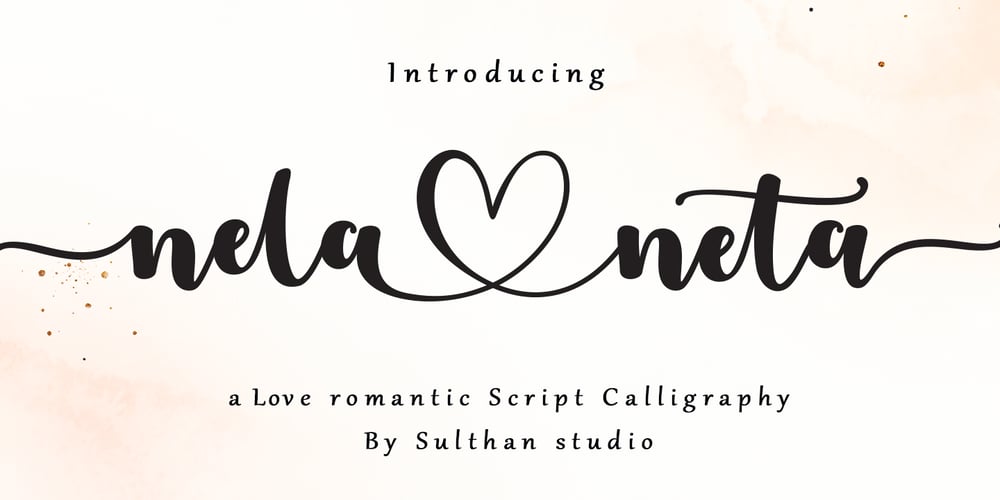
Nela neta script 1 Font Family was designed by Nasrullah and published by Sulthan Studio. Nela neta script 1 contains 3 styles and family package options. Nela neta -Nela neta script font, new, fresh, funny, attractive, with a heart to connect. This font has 3 styles in it. Perfect for greeting cards, branding materials, business cards, quotes, posters, and more! Nela neta – includes many alternative characters. Coded with Unicode PUA, which allows full access to all additional characters without having any special design software. Mac users can use Font Book. Windows users can use the Character Map to view and copy any of the additional characters to paste into your favorite text editor. For people who have opentype-capable software: Alternatives can be accessed by activating the “Alternative Styles” and “Ligatures” buttons on Photoshop’s Character panel, or via any software with a glyph panel, eg. Adobe Illustrator, Photoshop CC, Inkscape.